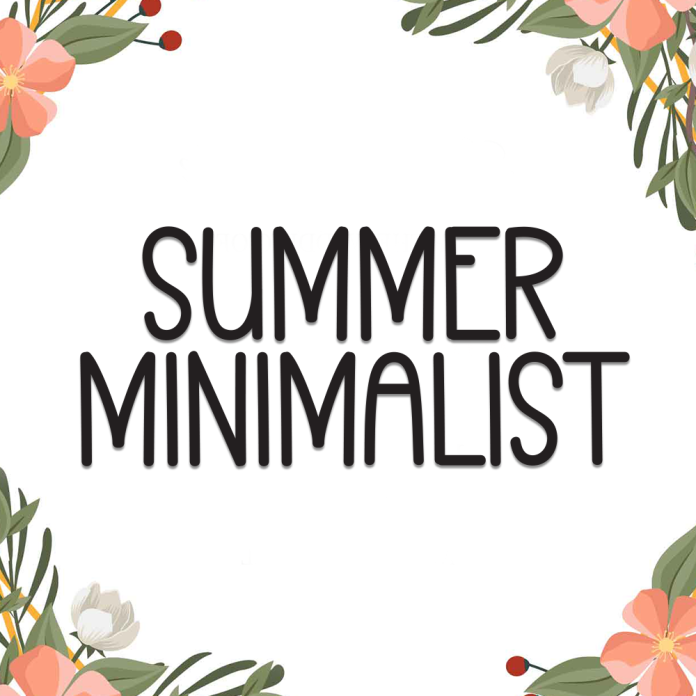
Summer Minimalist is a sleek and modern display font inspired by the simplicity and freshness of summer. With its crisp lines and airy design, this font brings a light and refreshing aesthetic to your creative projects.
Perfect for branding, packaging, summer event invitations, posters, and editorial layouts, Summer Minimalist radiates a calm, effortless vibe with a touch of elegance.
Minimalist display style with clean lines
Light and breathable aesthetic
Great for modern branding, summer campaigns, and lifestyle design
Uppercase and lowercase, with multilingual support
Let your designs breathe with the simplicity of Summer Minimalist.